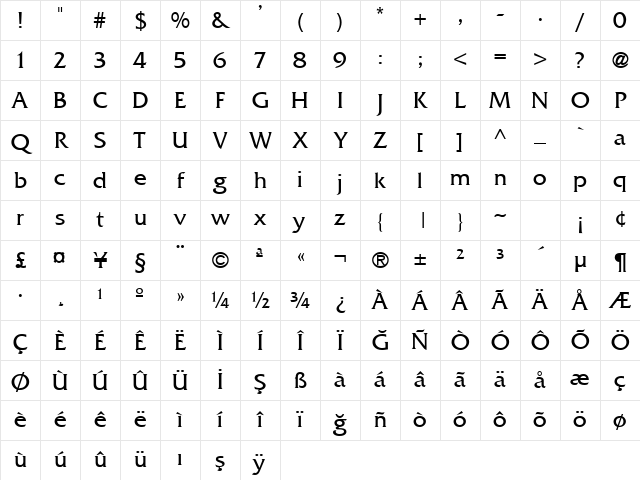
TR France Plain
TR France Family
Design Context for TR France
TR France is a composed and adaptable typeface that performs quietly and consistently across a wide range of design contexts.